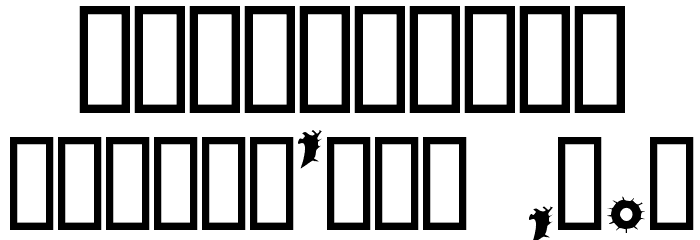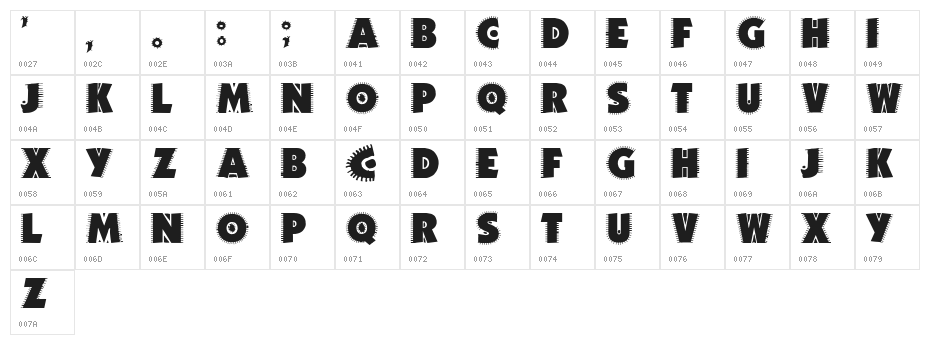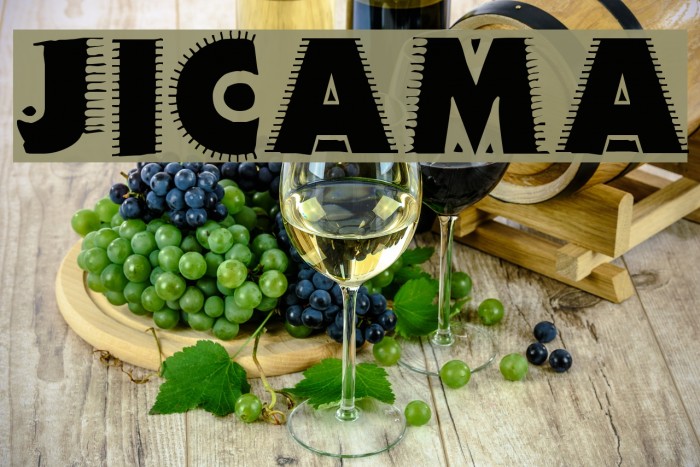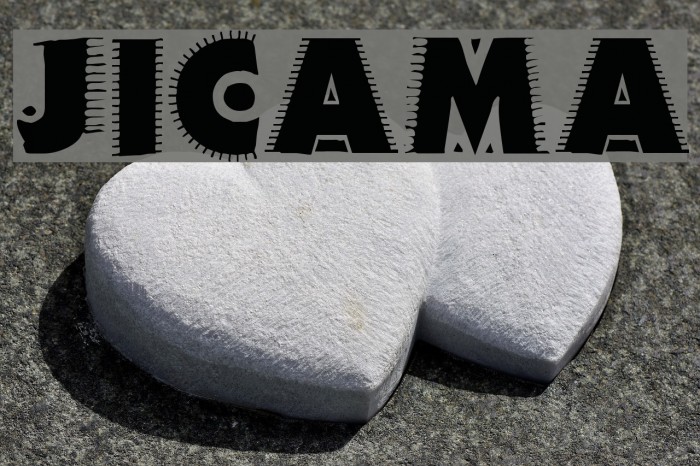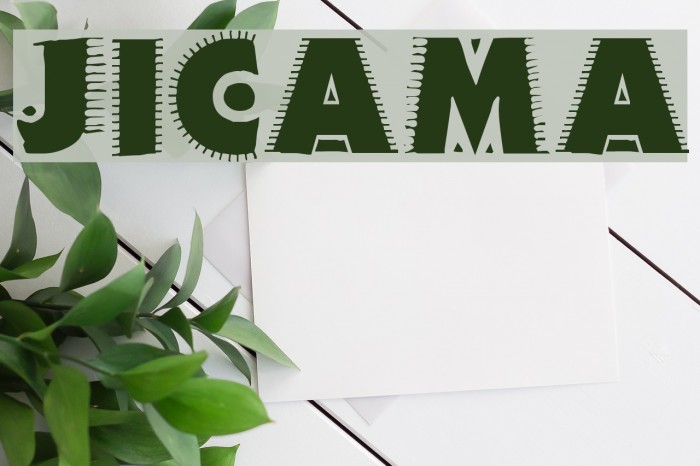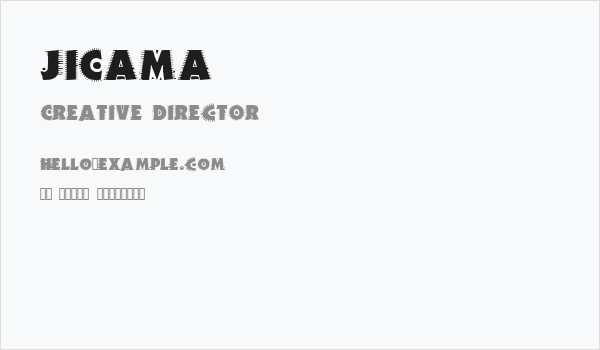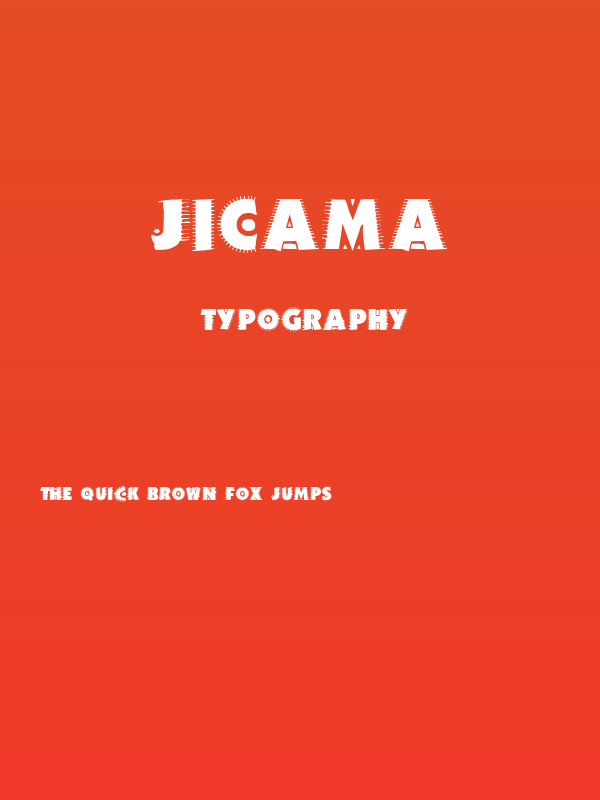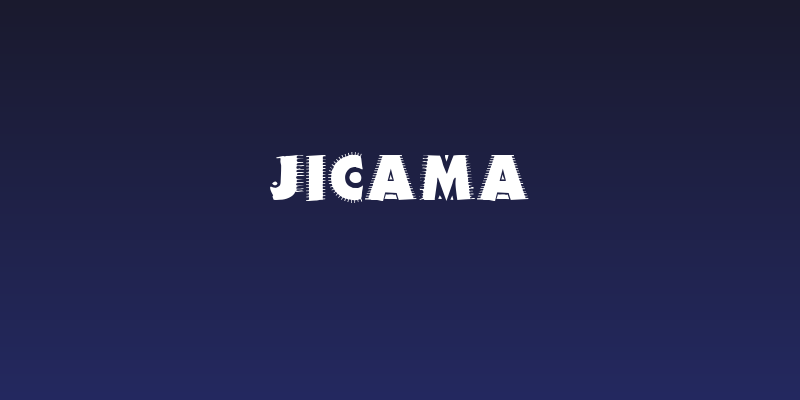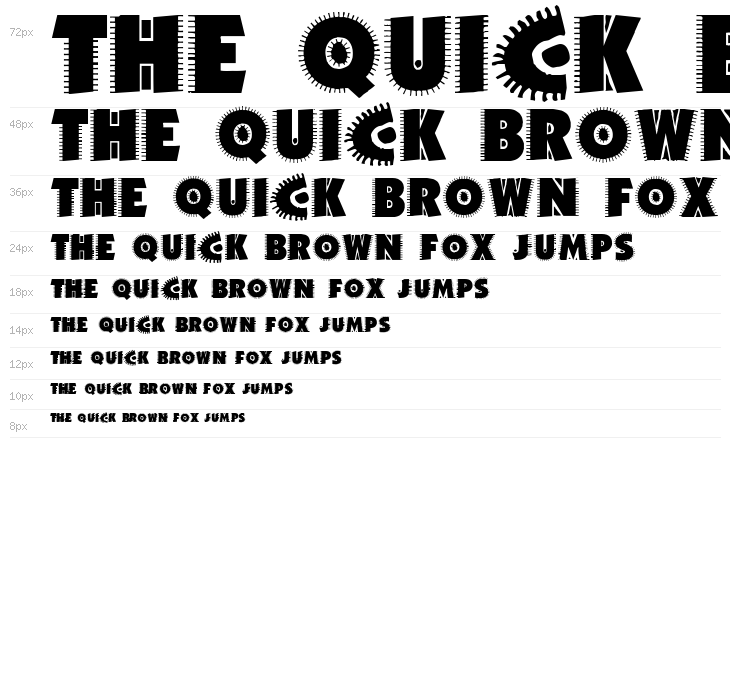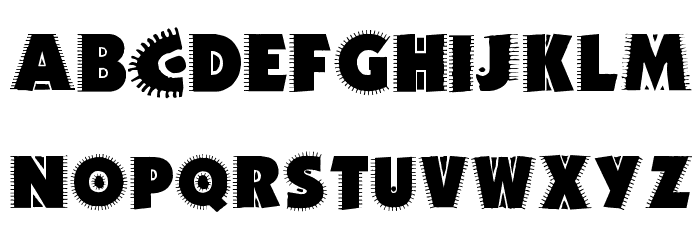
JICAMA Font
JICAMA Description
This font features bold, uppercase letters with a unique, decorative style. Each character is adorned with spiky, gear-like embellishments, giving it a dynamic and edgy appearance. The design is consistent across all letters, creating a cohesive and striking visual impact. The font lacks lowercase letters and numerals, focusing solely on uppercase characters and a few special symbols. Its boldness and decorative elements make it stand out, suitable for projects that require a strong visual presence.
Proposed ProjectsIdeal for posters, album covers, or any design project that requires a bold, eye-catching typeface.